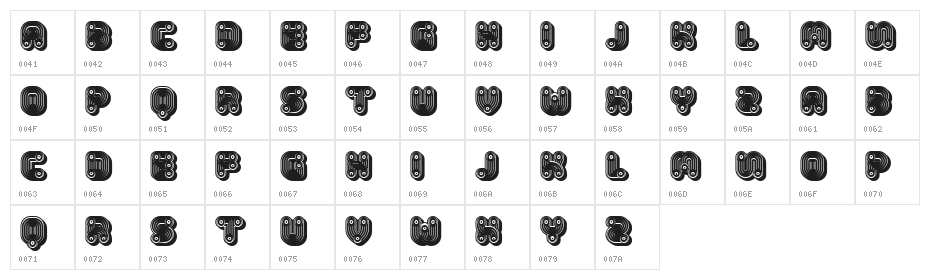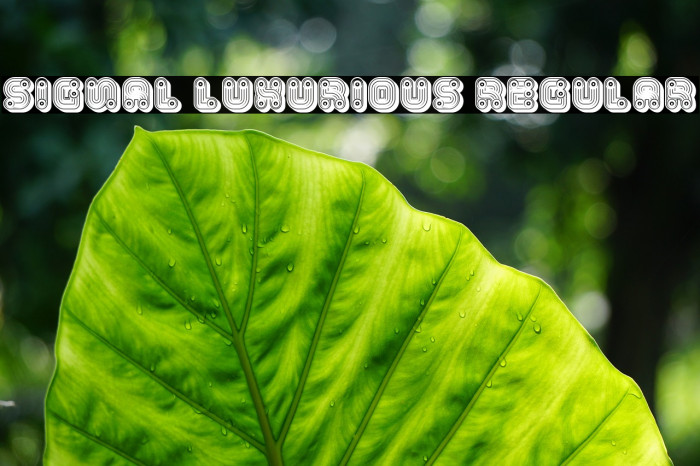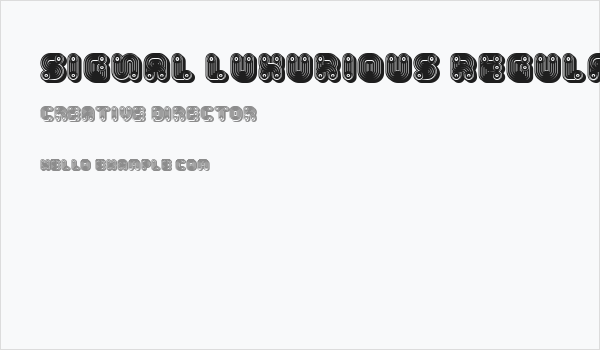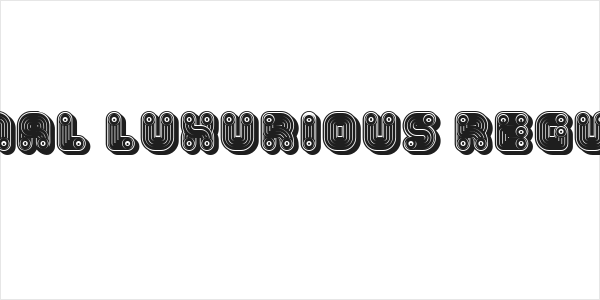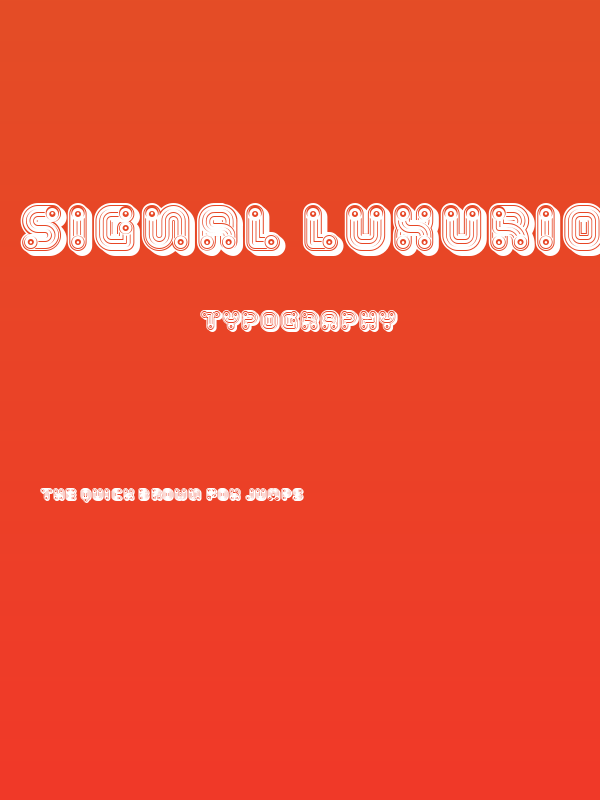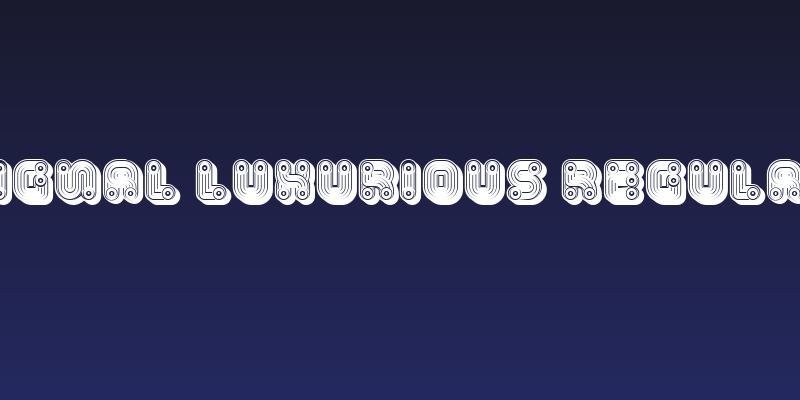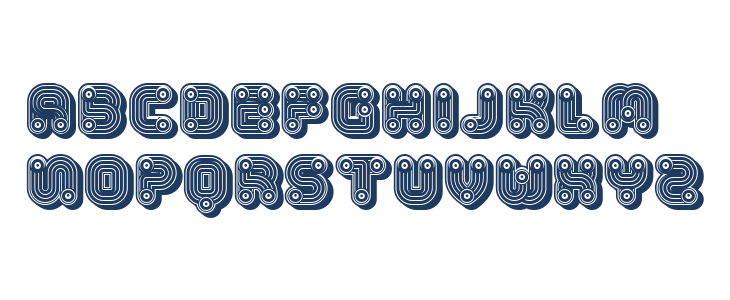
Signal Luxurious Regular Font
Signal Luxurious Regular Description
This font features a bold and decorative style with intricate line work and circular patterns within each letter. The design is highly detailed, with multiple layers creating a sense of depth and complexity. The characters are uniform in width, giving a balanced appearance across the typeface. The font's unique style is reminiscent of circuit board patterns or futuristic designs, making it stand out as a display typeface. Its bold presence and intricate detailing make it suitable for eye-catching headlines or artistic projects where a strong visual impact is desired.
| Overall Style | Futuristic, Decorative |
| Proposed Projects | Ideal for futuristic designs, tech-related branding, posters, and artistic projects requiring a strong visual impact. |